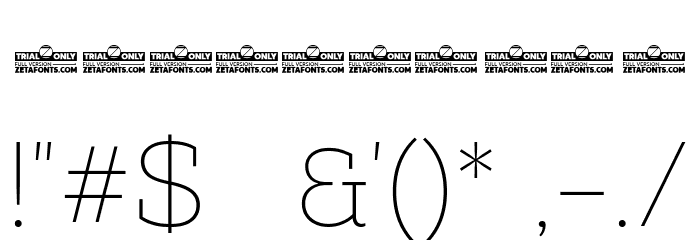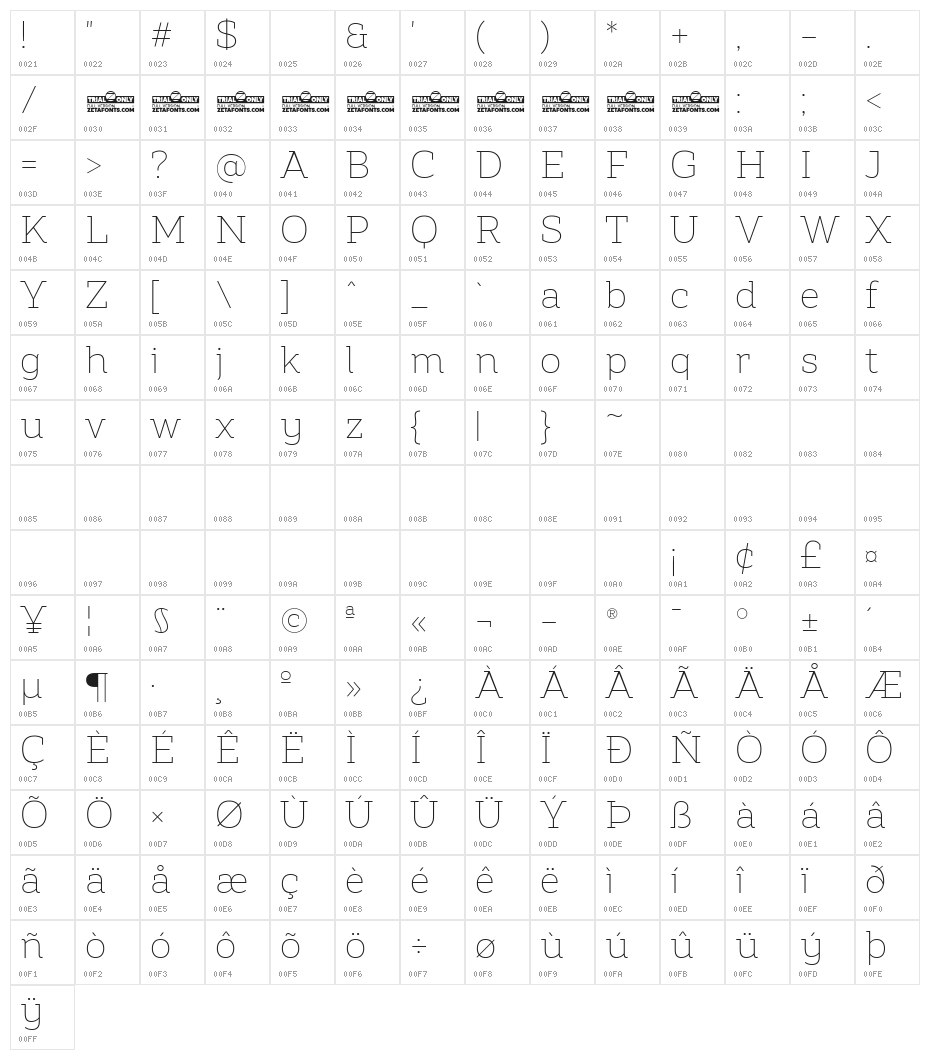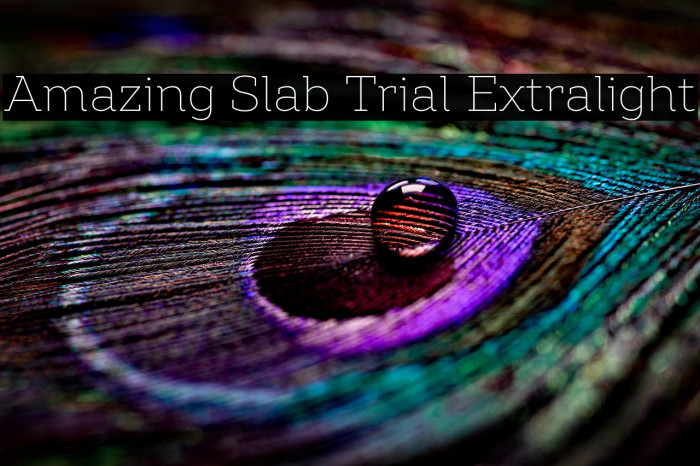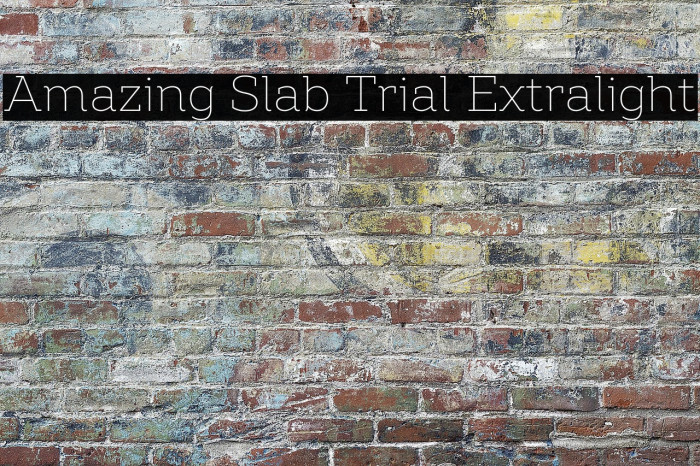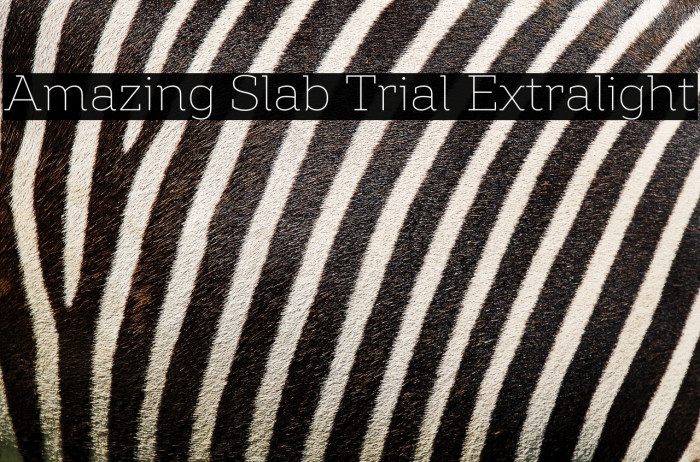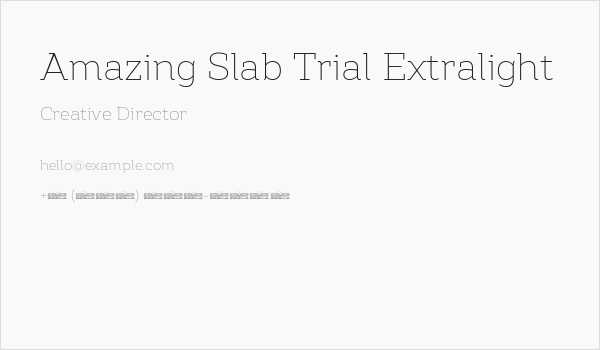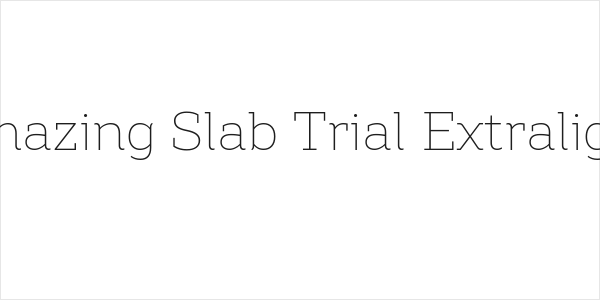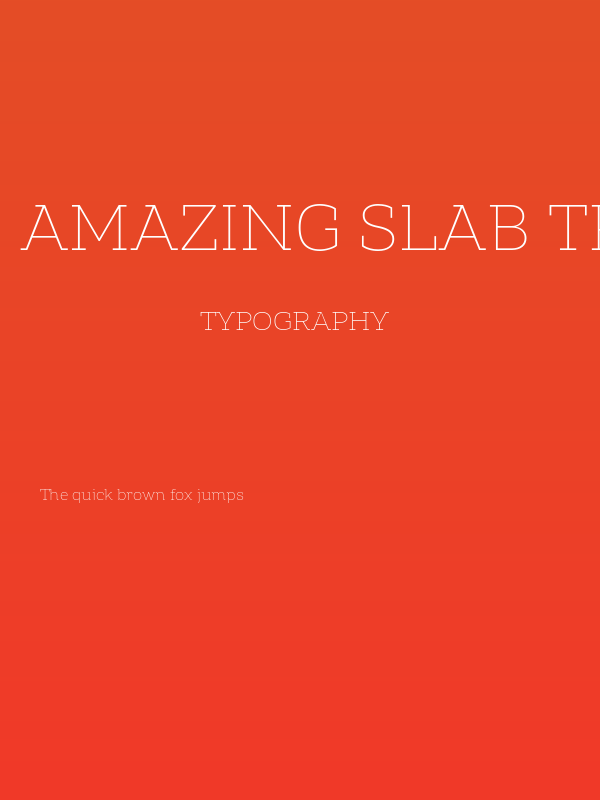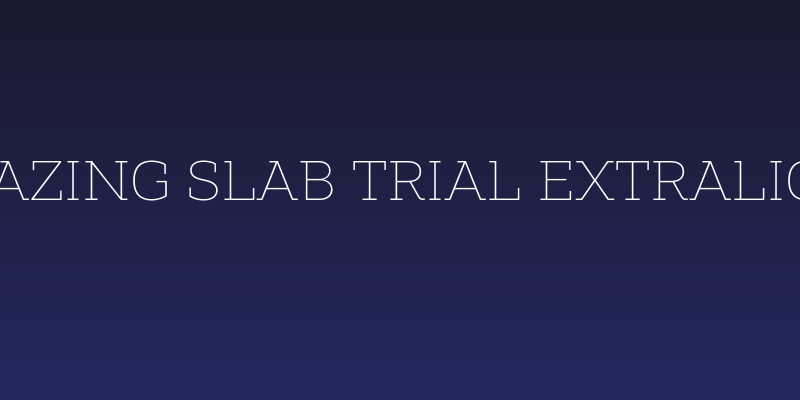
Amazing Slab Trial Extralight Font
Amazing Slab Trial Extralight Description
This font exhibits a clean and modern aesthetic with its thin, uniform strokes and geometric shapes. The characters are well-defined with a consistent line weight, giving it an elegant and sophisticated appearance. The uppercase and lowercase letters maintain a harmonious balance, while the numerals and special characters are crafted with precision. Its simplicity and clarity make it highly readable, suitable for a variety of design applications. The font's minimalistic style is complemented by its subtle curves and straight lines, making it versatile for both digital and print media.